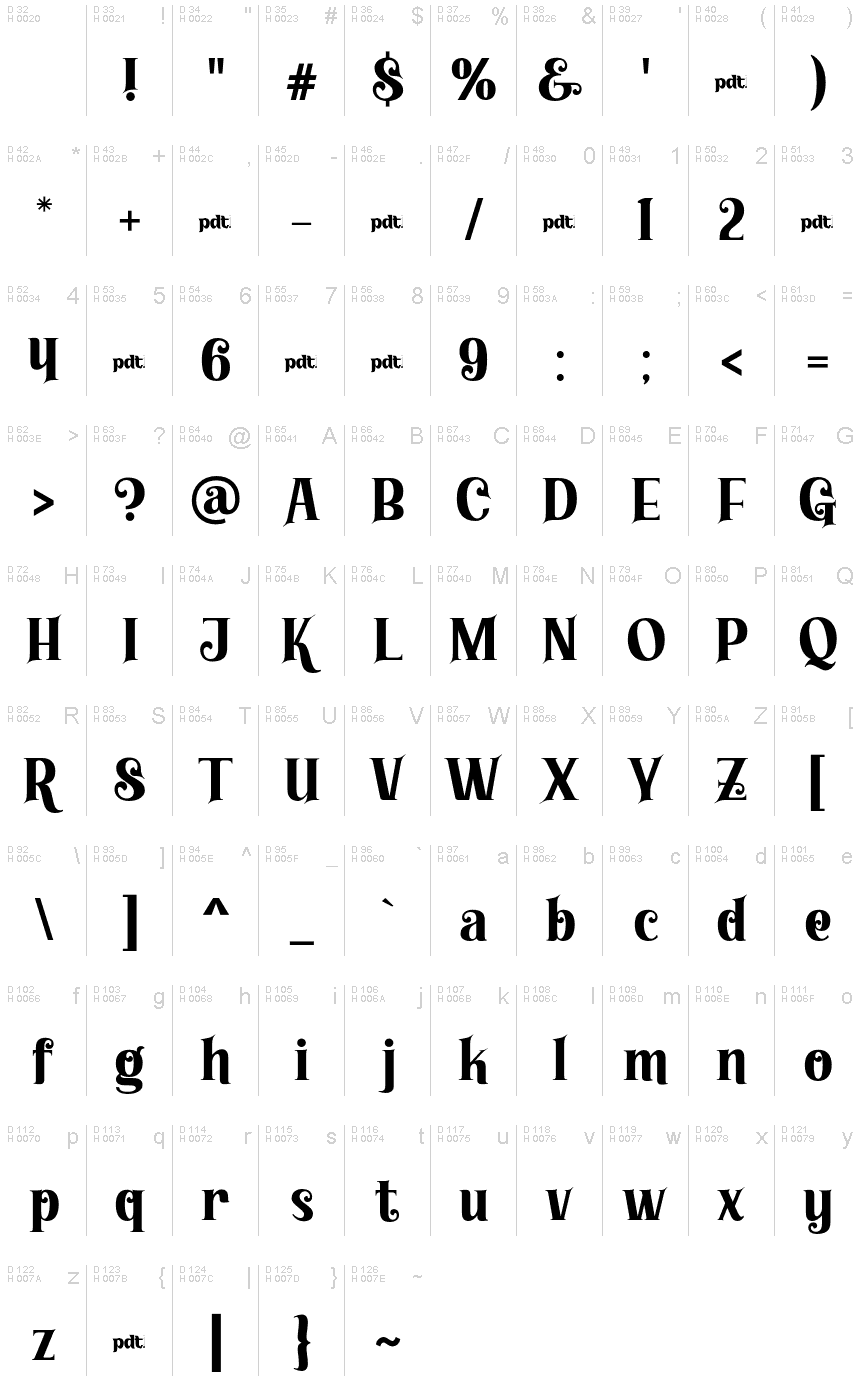
Karethtrial-Regular
Kareth, the gothic and vintage font designed by Rozi of Productype, is a unique typeface that will give your projects the edge they need to stand out. With its bold lines and intricate details, Kareth is perfect for creating a sense of mystique and intrigue in your designs. Whether you're working on a horror movie poster or a vintage-inspired logo, this semi-bold font will add an air of sophistication and elegance to any project. Its narrow width makes it ideal for headlines or titles, while its wider options lend themselves well to body text or captions. Unleash your creativity with Kareth and take your designs to the next level!